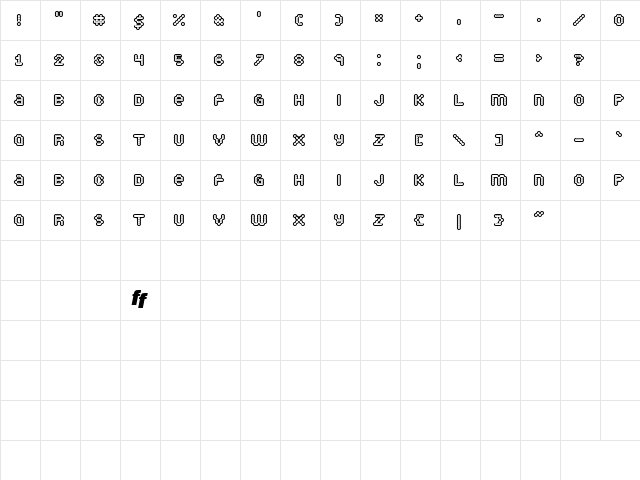
Puffy Dreamland Regular
Design Context for Puffy Dreamland Typeface
Puffy Dreamland takes a measured approach to typography — its balanced proportions and neutral character make it a reliable workhorse for both digital and print work.